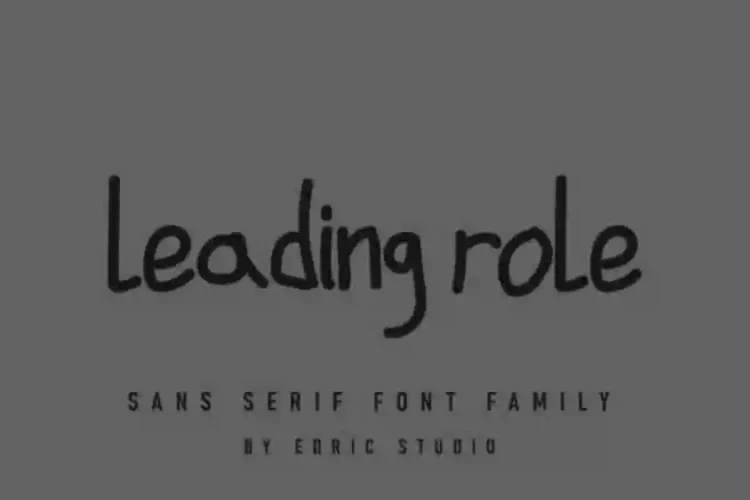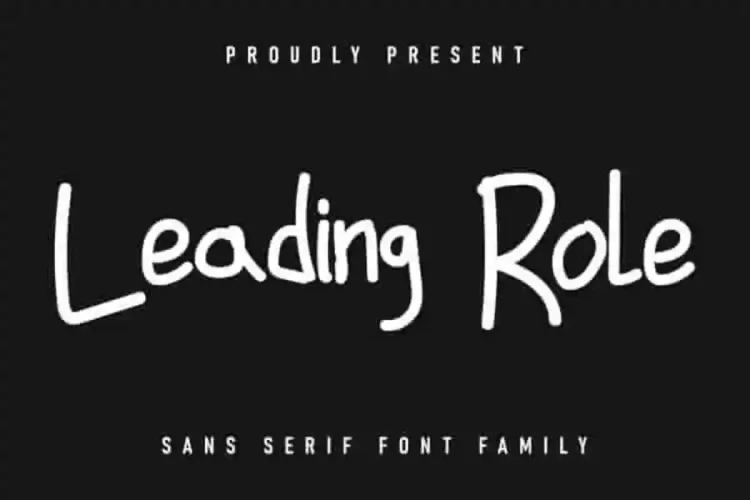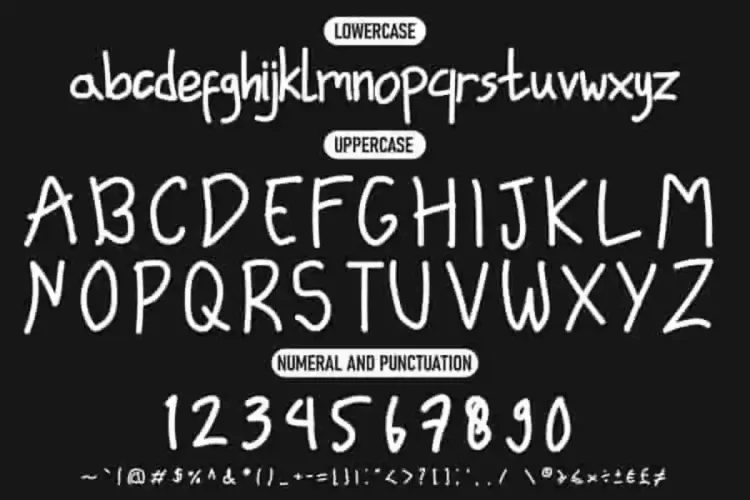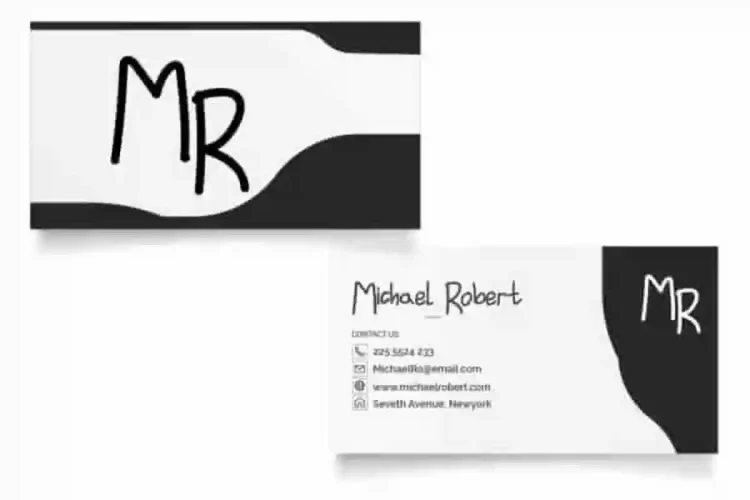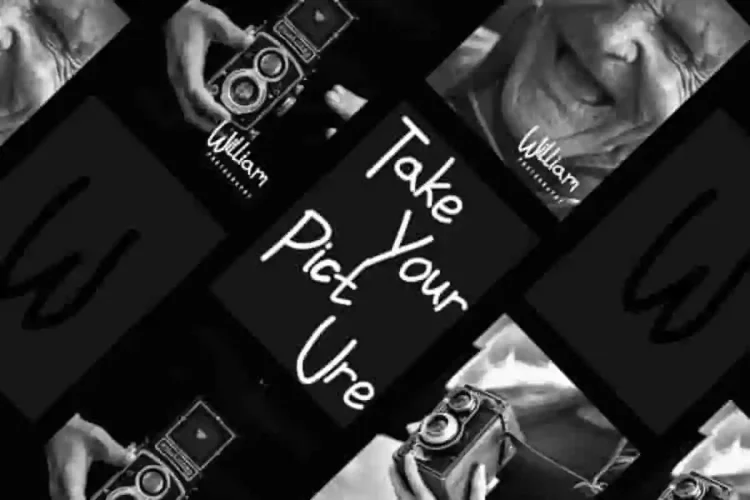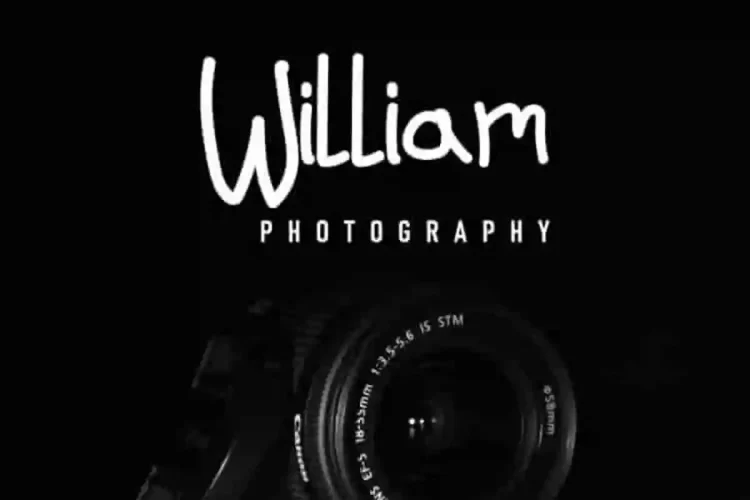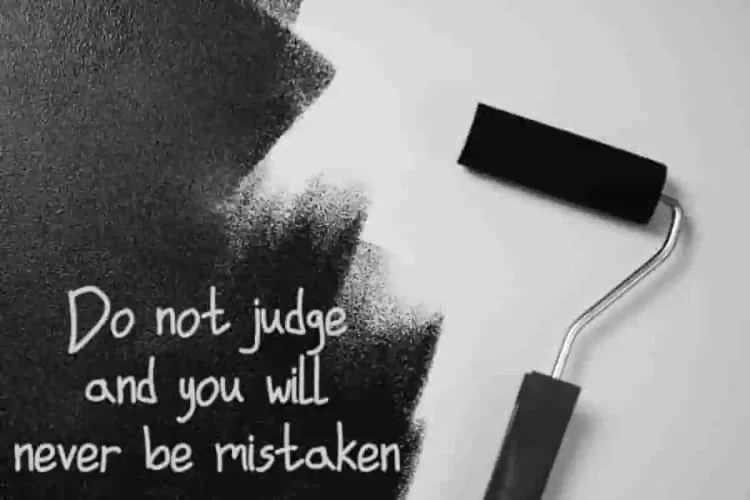
Leading Role Sans Serif Font
EDRIC Studio, Present to you : Leading Role Sans Serif Font
This is our newest product, handmade by Ega and Sarah. This is a sans serif cartoon font, handcrafted here in Indonesia.
Leading Role Sans Serif Font has a fun characters/glyphs set, perfectly managed with well spaced and kerning. The theme style of this font will be fun,  comic, sans serif, classic and display style.
Leading Role Sans Setrif Font will be awesome for any projects including : branding, logo, stationery, business card, signage, flyer, brochure etc.